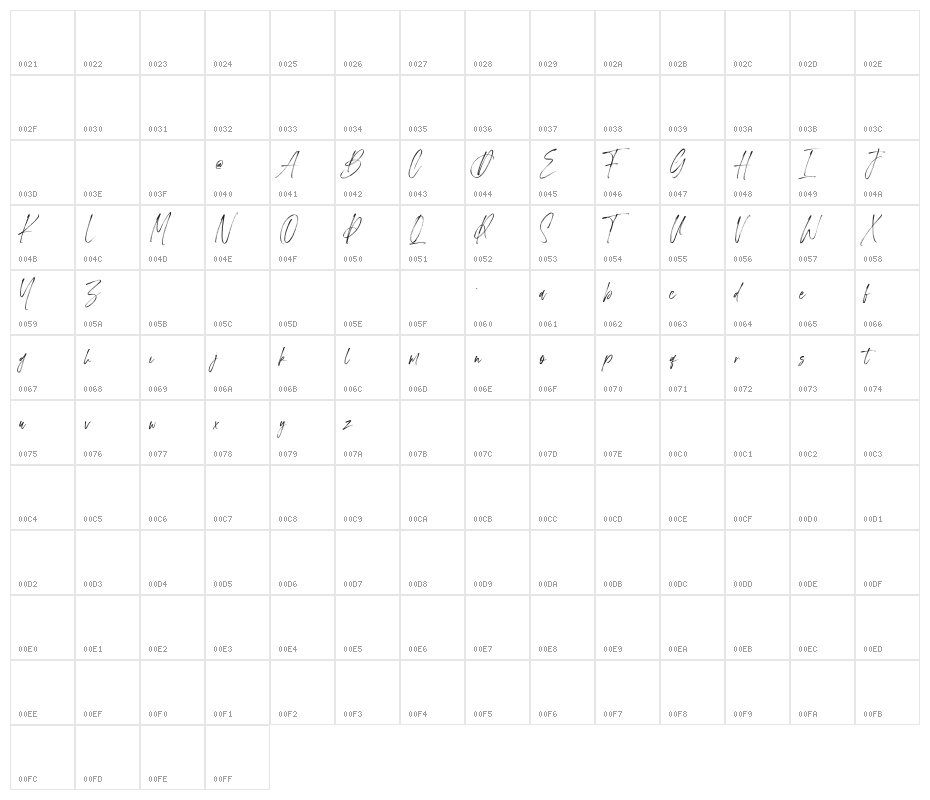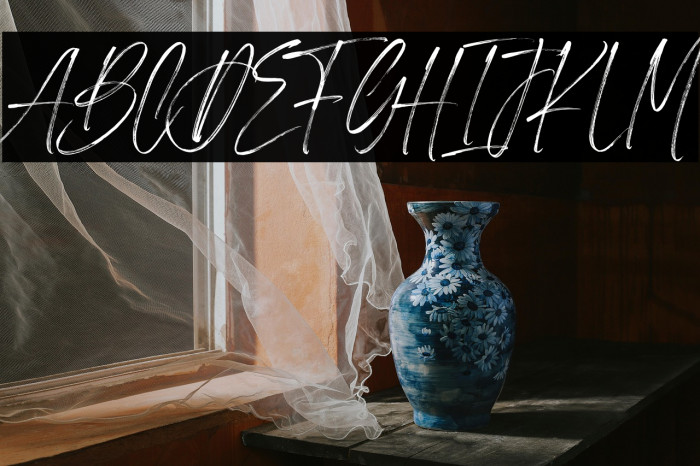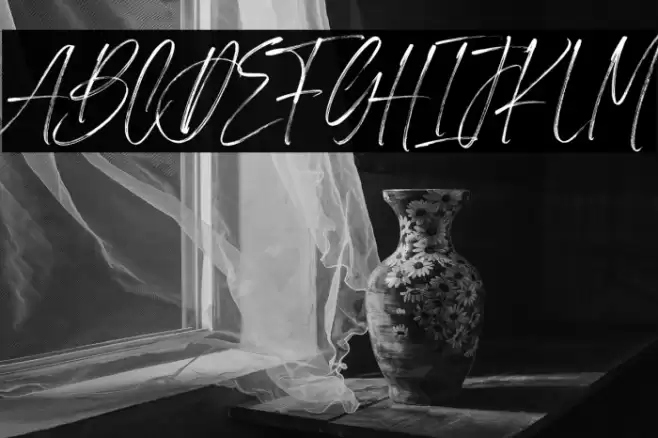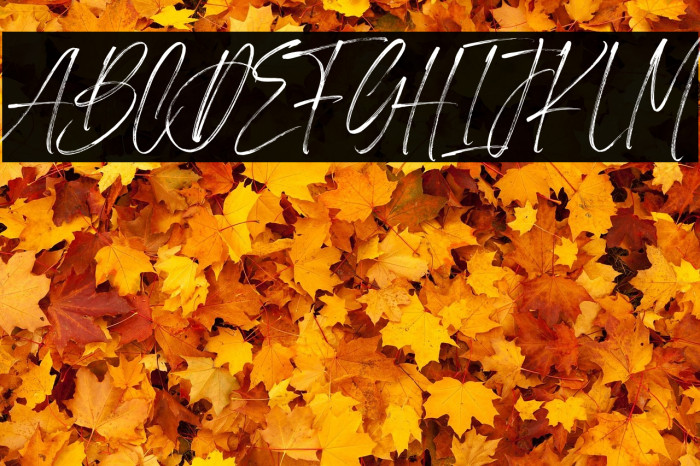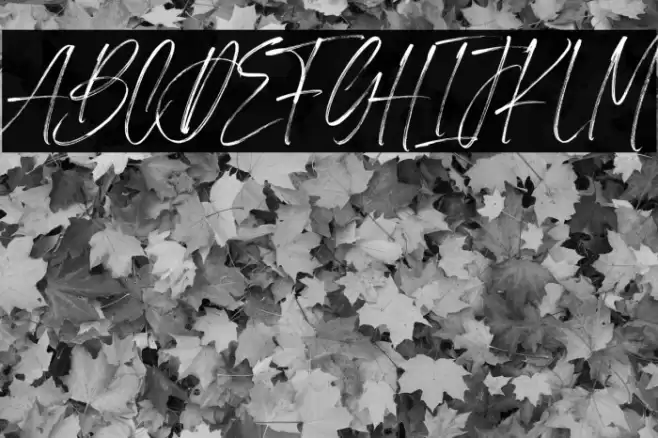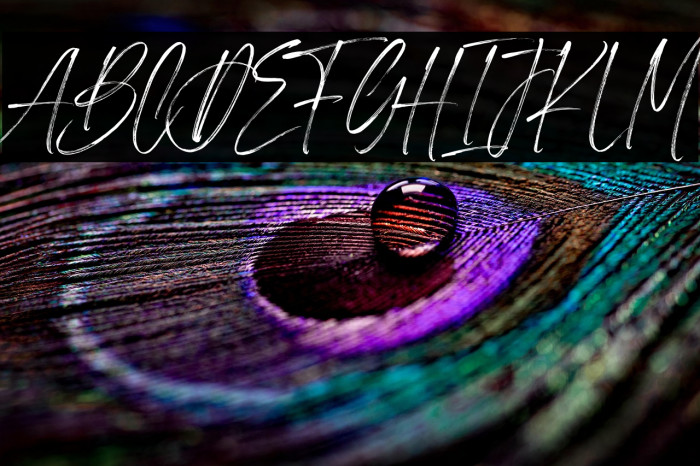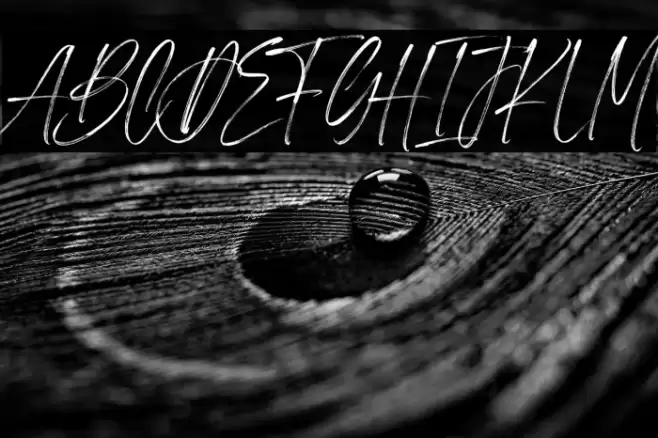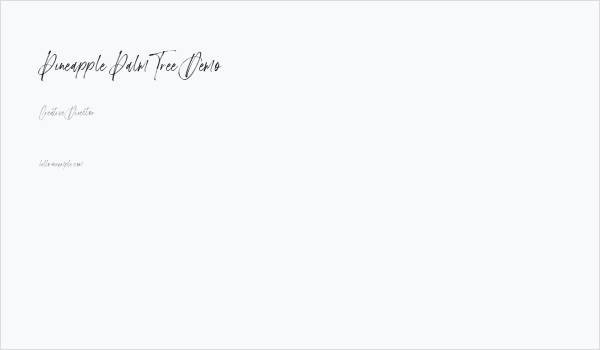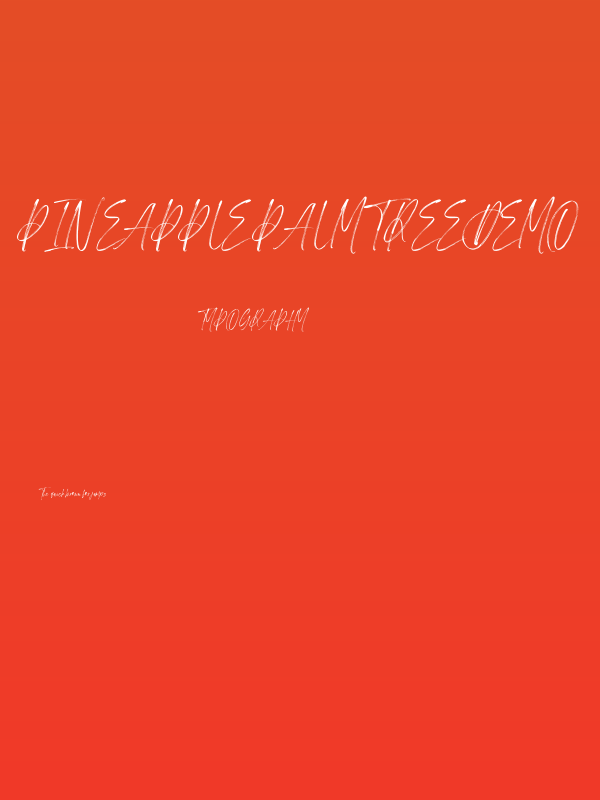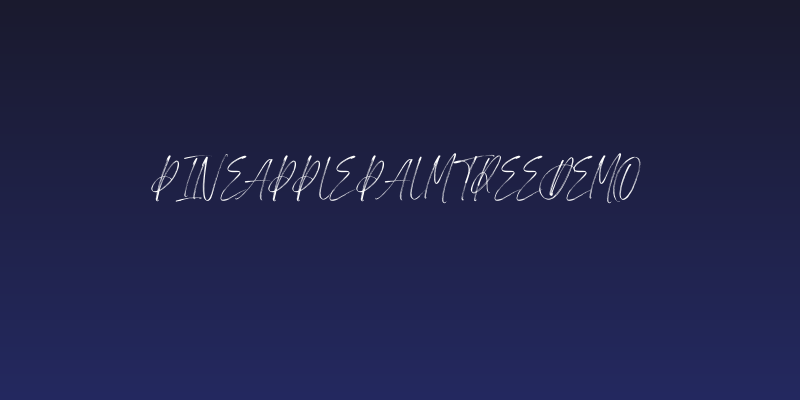
Pineapple Palm Tree Demo Font
Pineapple Palm Tree Demo Description
This font exudes a lively and expressive character, with its fluid, handwritten style that mimics the natural flow of cursive writing. The strokes are varied in thickness, creating a dynamic and artistic appearance. The letters are slightly slanted, enhancing the casual and informal feel. The uppercase letters are bold and prominent, while the lowercase letters maintain a consistent flow, adding to the overall elegance. The font's playful yet sophisticated nature makes it suitable for creative projects that require a personal touch.
| Proposed Projects | Ideal for wedding invitations, greeting cards, branding projects, and social media graphics. |